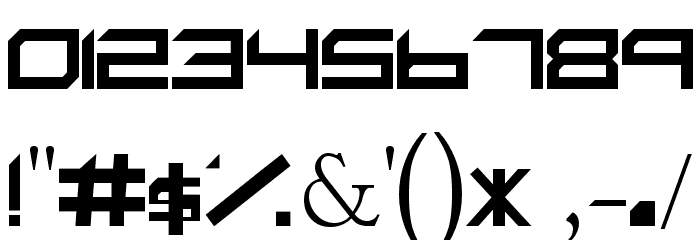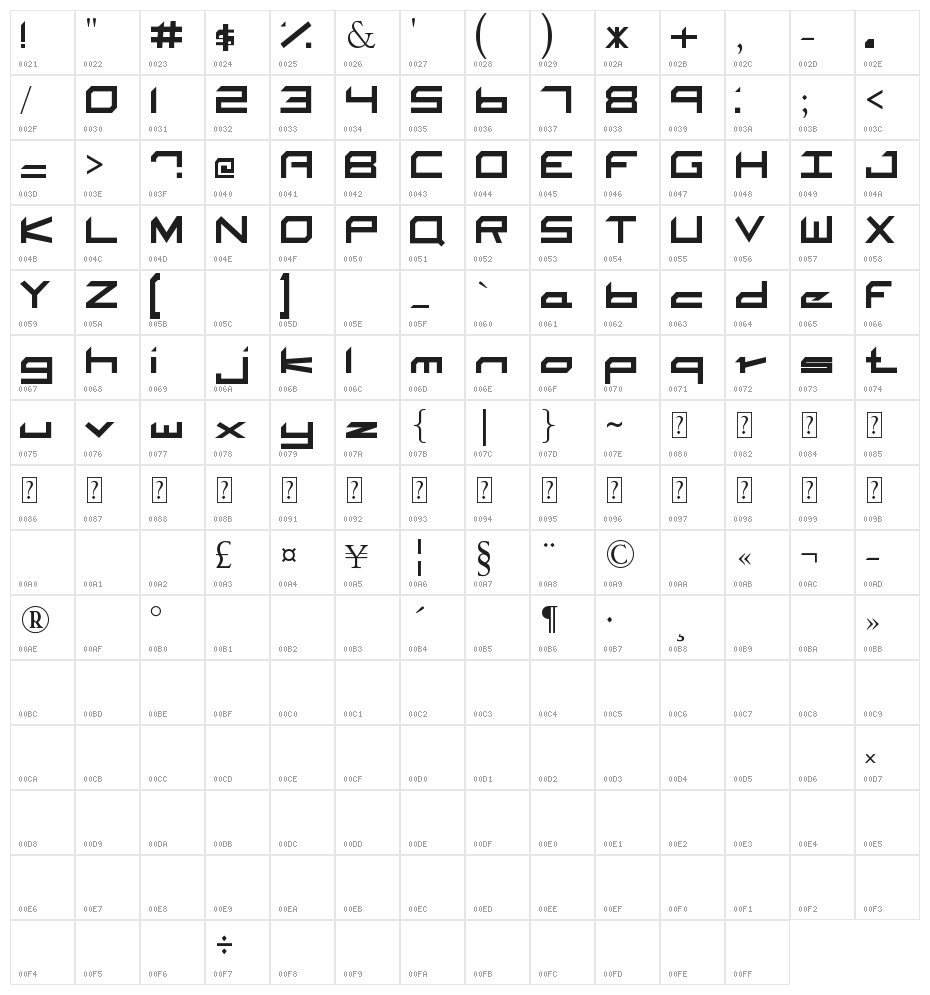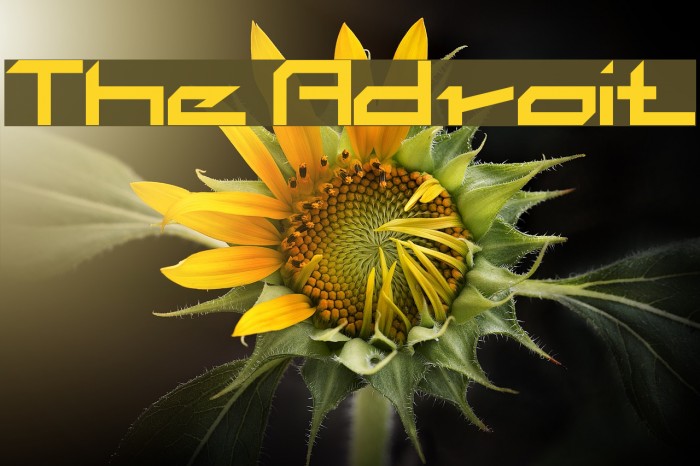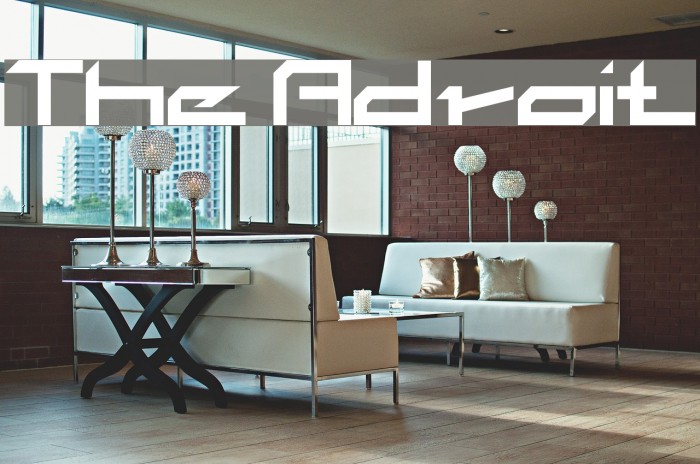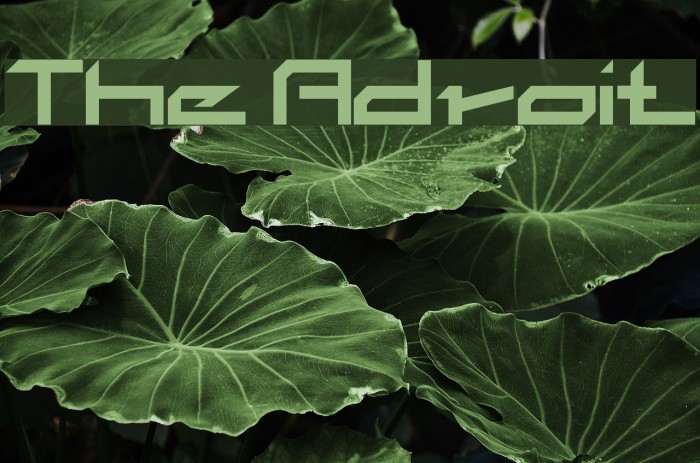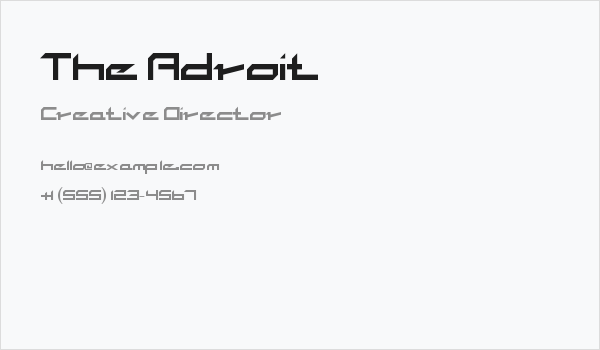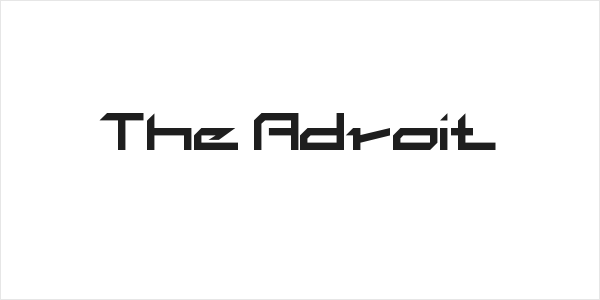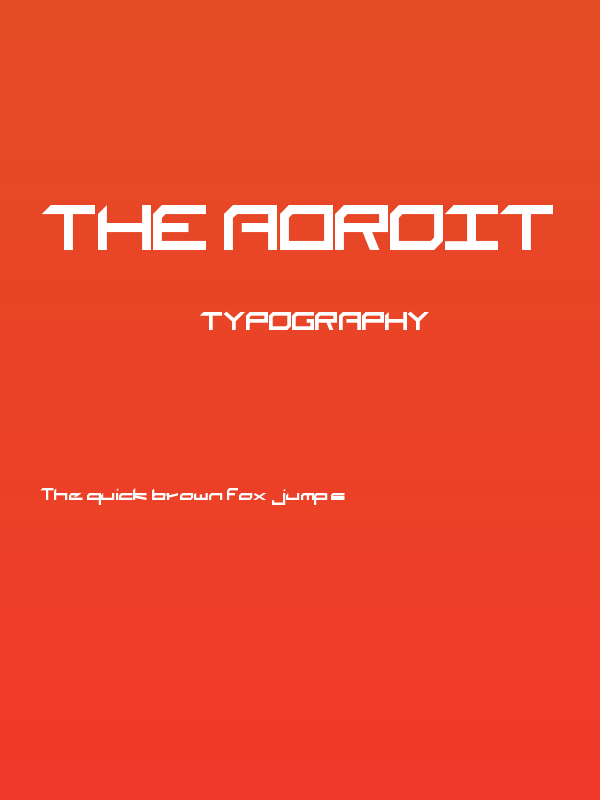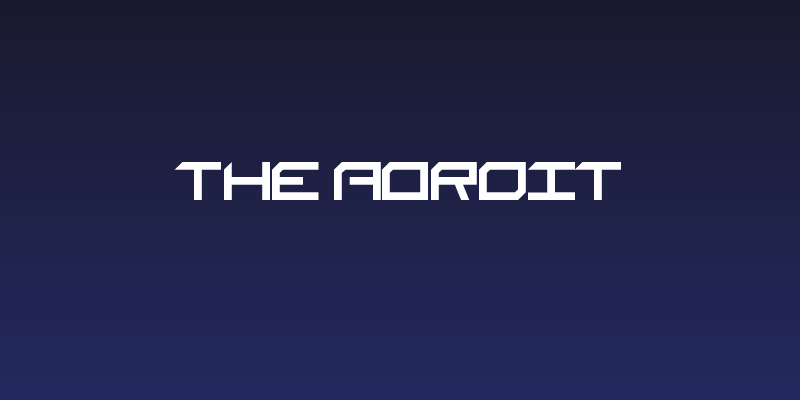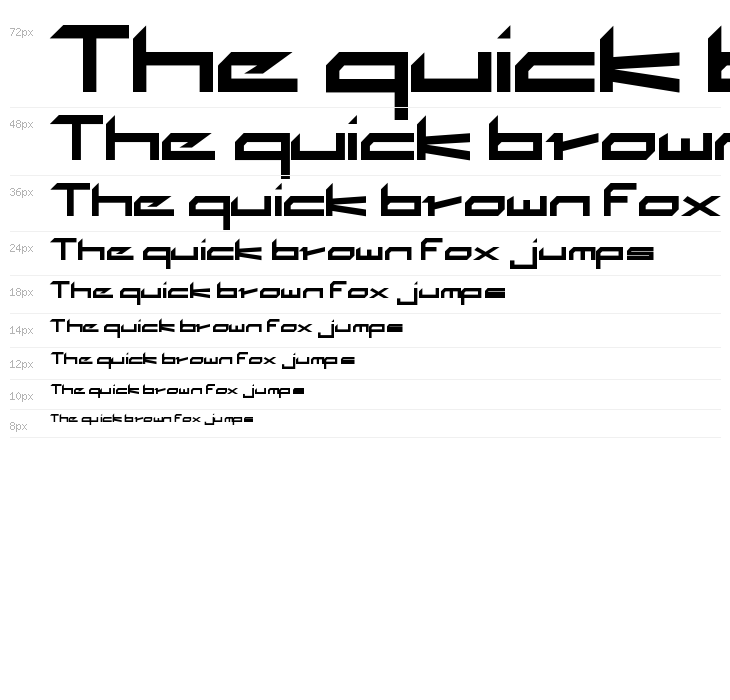
The Adroit Font
The Adroit Description
This font exhibits a futuristic and angular design, characterized by sharp edges and geometric shapes. The uppercase letters are bold and assertive, with a distinct angularity that gives them a modern, tech-inspired look. The lowercase letters maintain this geometric style but with a slightly softer touch, providing a nice contrast to the uppercase. Numbers follow the same design principles, ensuring consistency across all characters. Special characters are uniquely styled to match the overall aesthetic, making this font suitable for projects that require a modern and edgy appearance.
A futuristic, angular font with bold geometric shapes from Uncategorized fonts.
- Proposed Projects: Ideal for tech branding, video game titles, sci-fi posters, and modern digital interfaces.